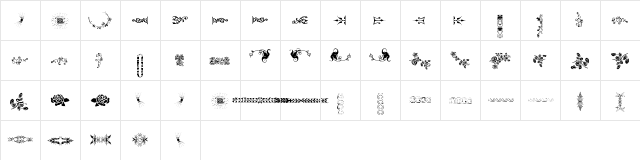
Unpublished Ornaments Two Regular
Design Context for Unpublished Ornaments Two Typeface
Unpublished Ornaments Two brings ornamental detail and strong personality to headlines and identities, where visual impact matters more than quiet functionality.
Font Pairing: Pair with a clean neutral sans-serif for body copy to let Unpublished Ornaments Two's character lead without overwhelming the composition.
Pro Tip: Treat Unpublished Ornaments Two as the centrepiece of your typographic hierarchy. One strong heading set in a decorative face can carry an entire layout.